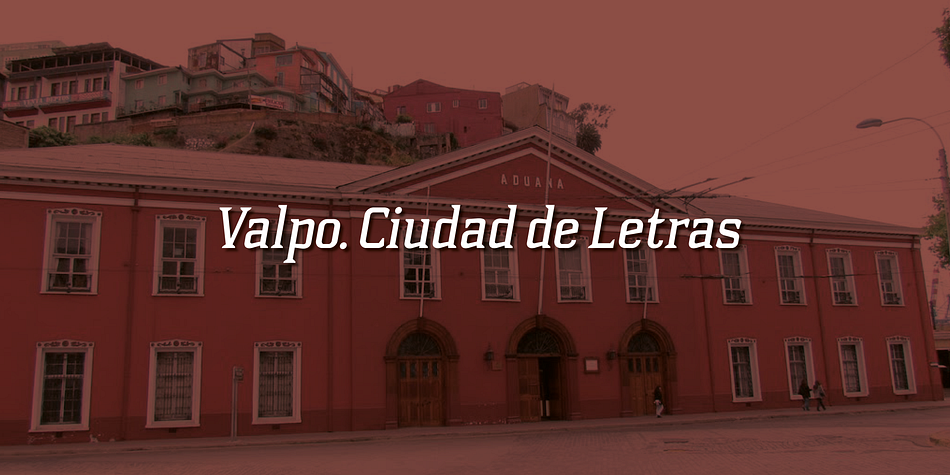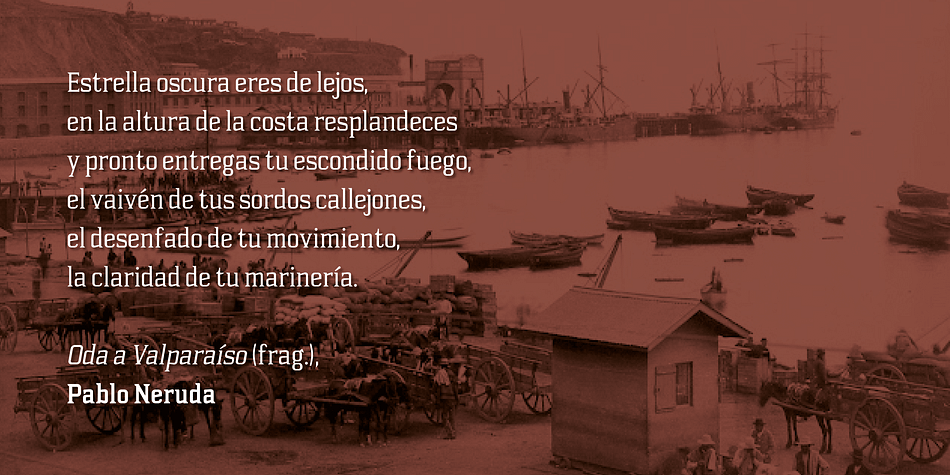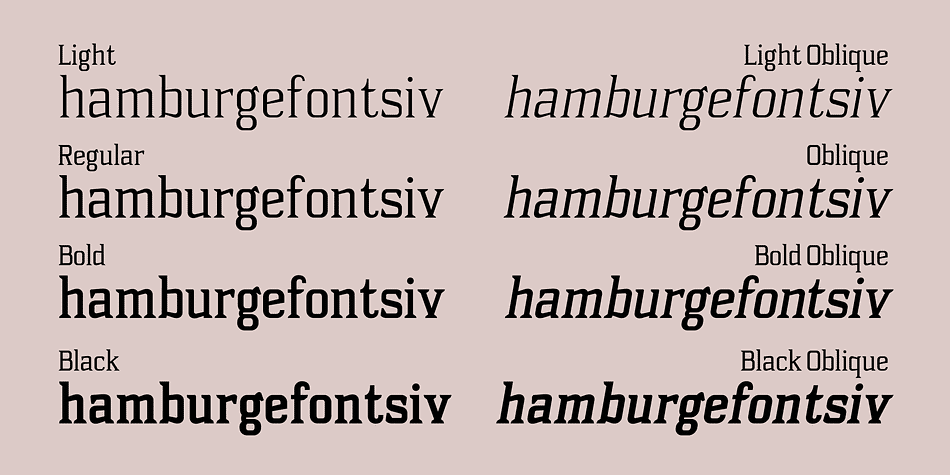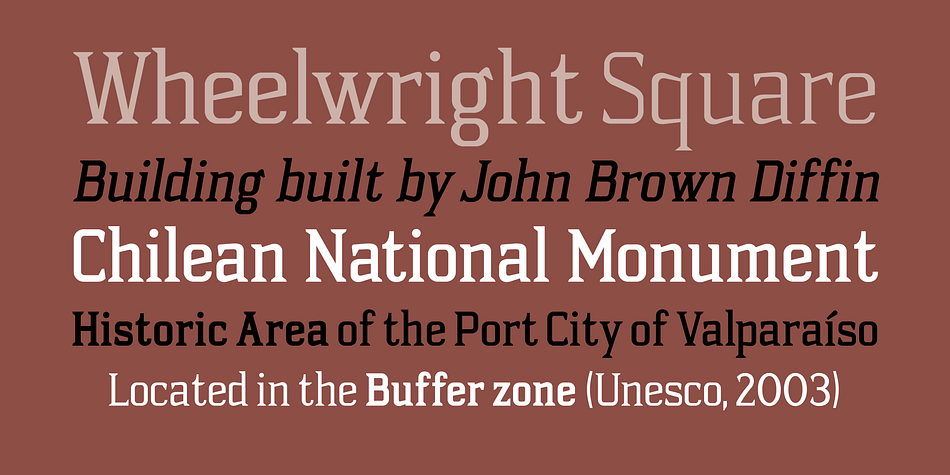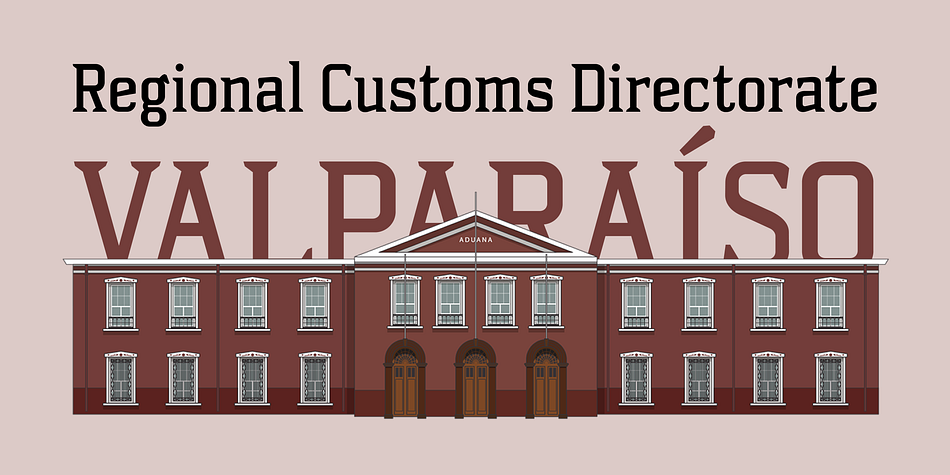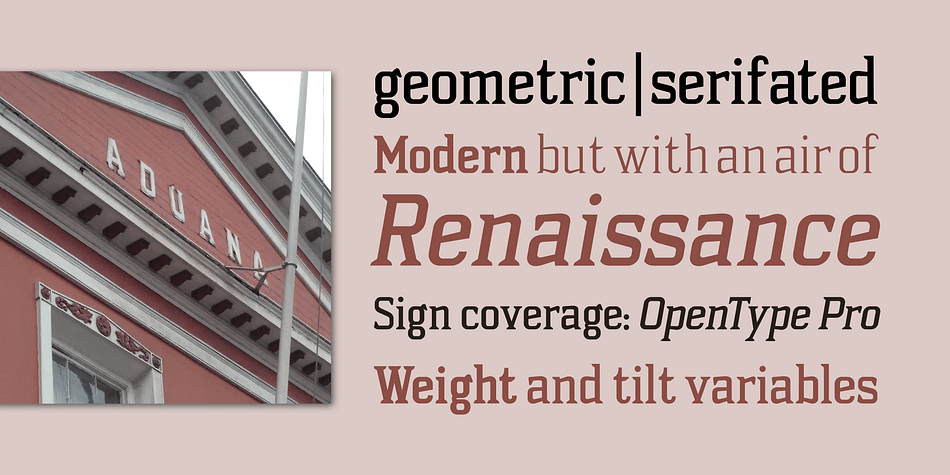
Aduana
Designed by Fabio Ares and Karin Thiers, Aduana is a serif font family. This typeface has eight styles and was published by Fabio Ares.
Aduana is the first typographic product of argentine-chilean typographic archeology project called “Valpo. Ciudad de Letras” (Fabio Ares & Karin Thiers, since 2016).
Based on the letter located on the front of the Customs building (Valparaíso, Chile). The resultant font can be described as display type and modern renaissance style, with geometric shapes and serif and mild line modulation.